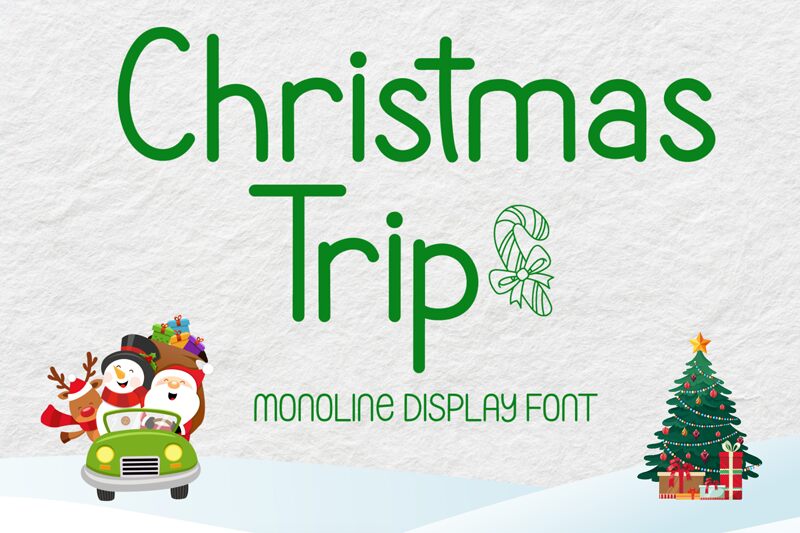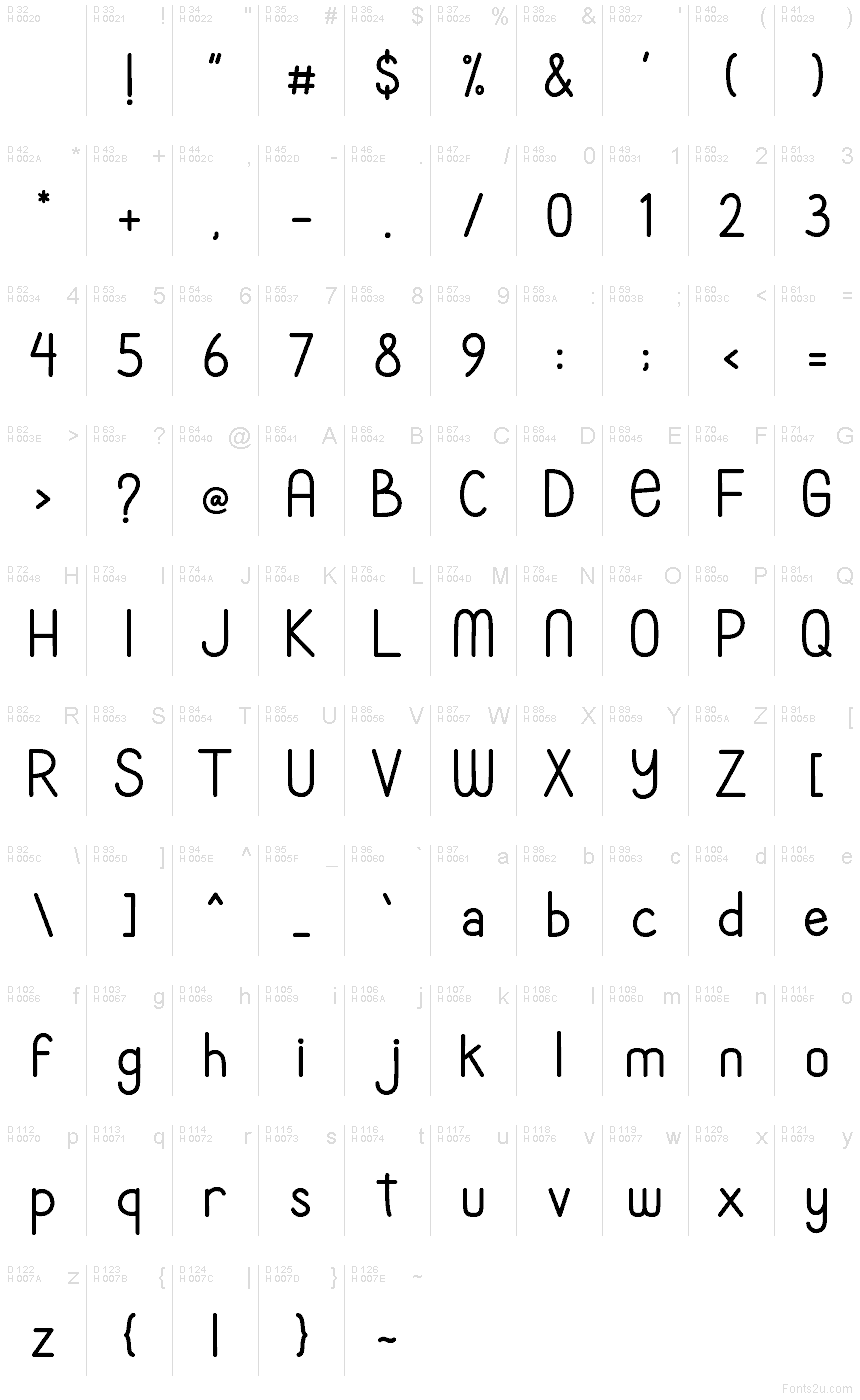
Christmas Trip
Christmas Trip font by AEN Creative Studio is a free holiday typeface that captures the cozy, slightly quirky charm of handwritten Christmas notes. Rounded strokes and gentle curves give each letter a soft, friendly feel-like something written on a gift tag or a postcard from a snowy winter getaway. It’s clean enough to stay legible at smaller sizes, but still full of character, with a relaxed rhythm that feels warm rather than stiff.
Using Christmas Trip, this free font shines on Christmas cards, party invitations, gift labels, seasonal social media graphics, children’s holiday books, and festive packaging. Its simple, rounded forms also work beautifully for classroom decor and DIY craft printables. Pair it with a neutral sans serif for body copy, and let Christmas Trip handle the headings and short phrases in slightly larger sizes to keep that cheerful, handwritten mood front and center.